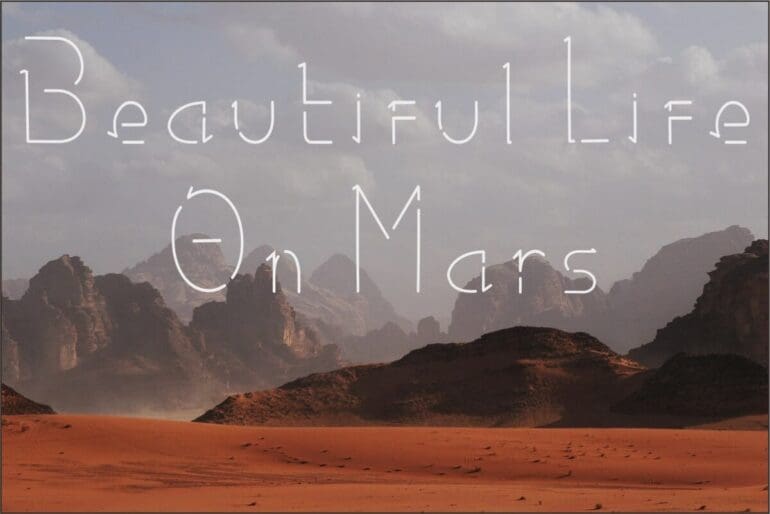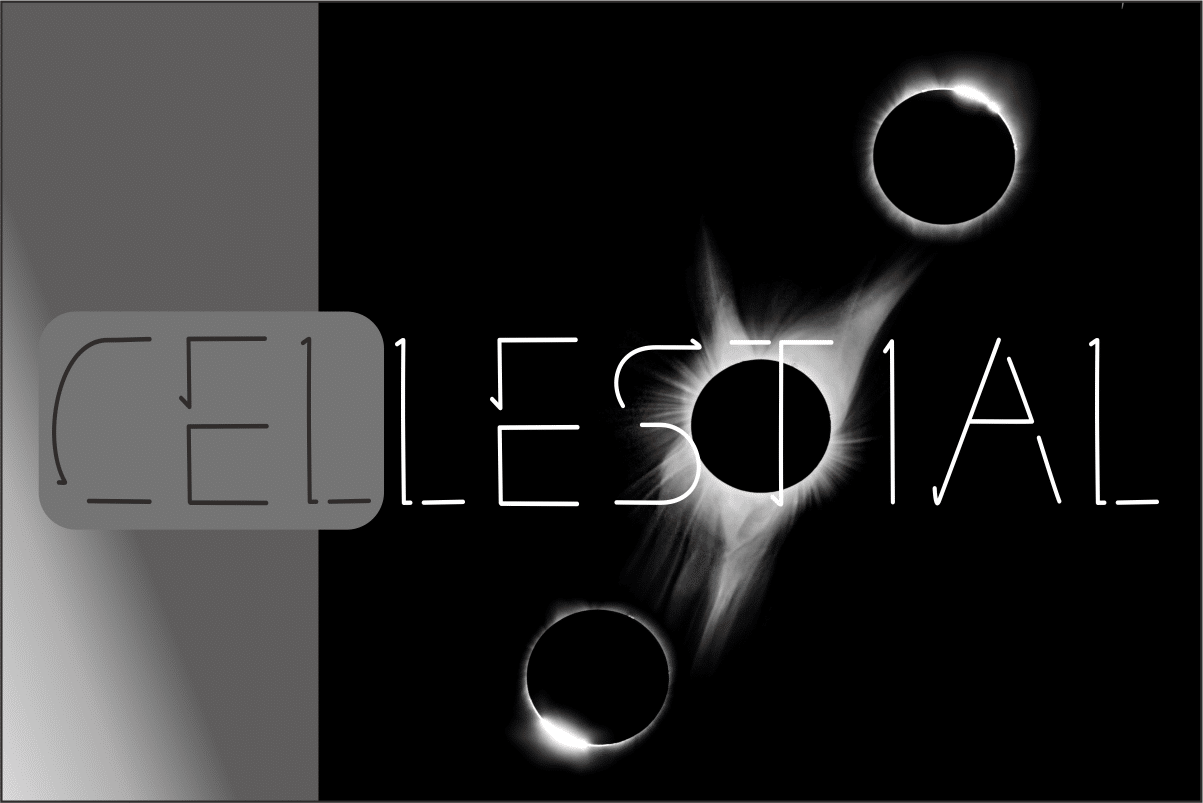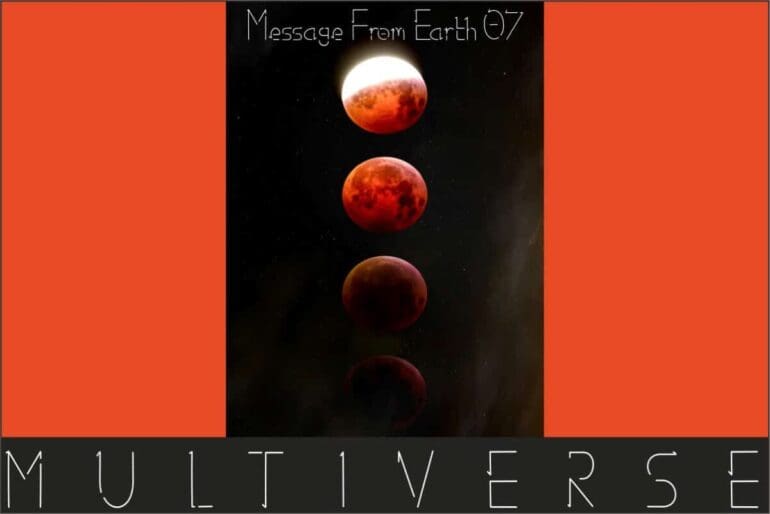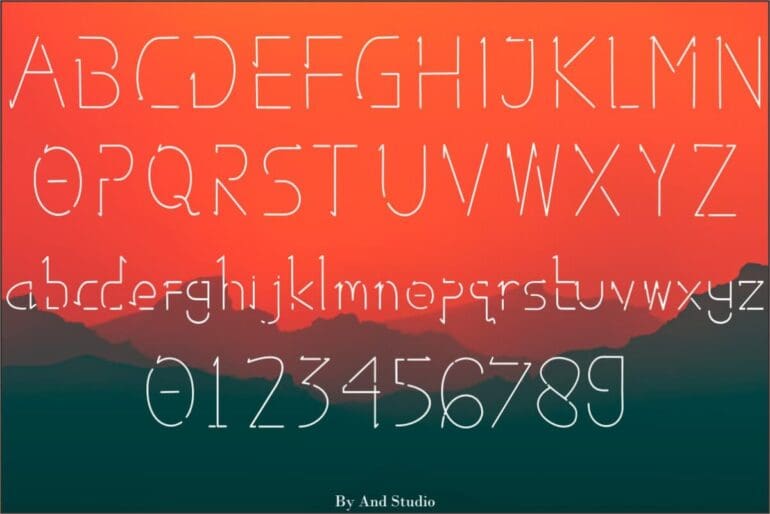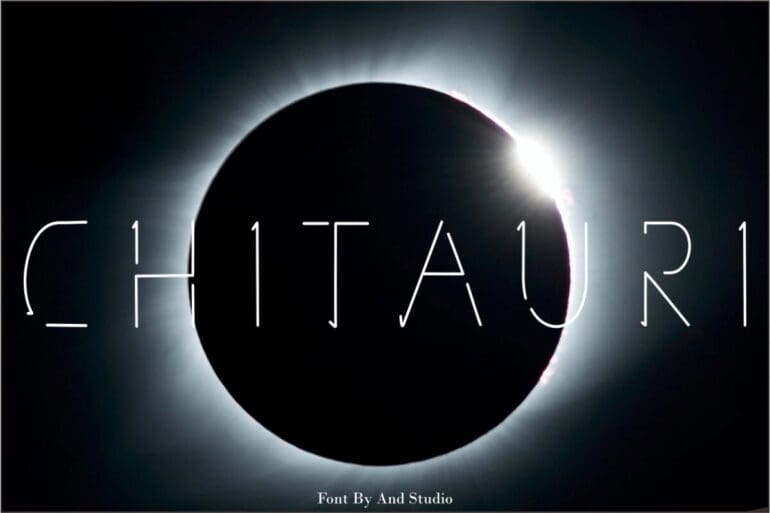
Chitauri Font
Chitauri this is display font. It’s perfect for your design such as logo, branding, photography, product, packaging, social media posts, etc.